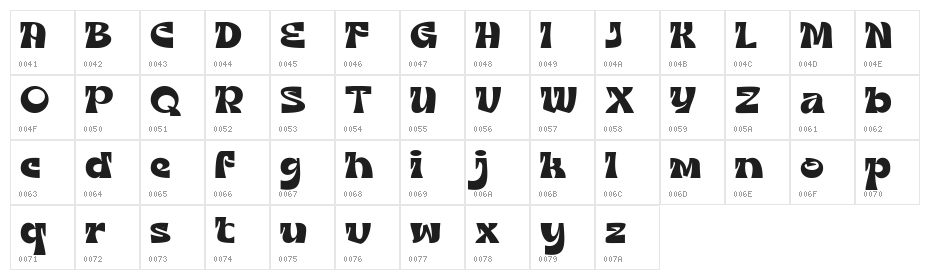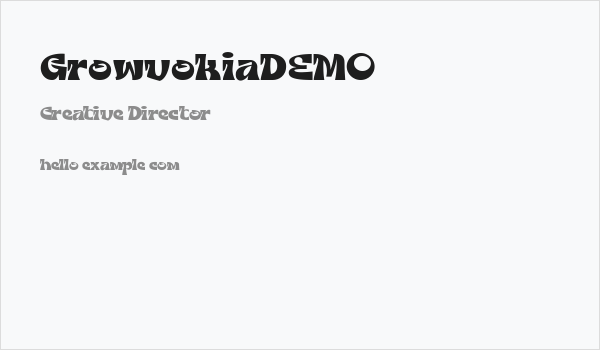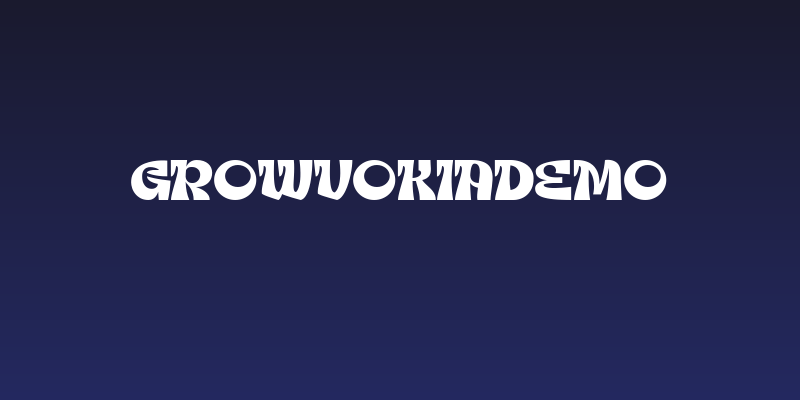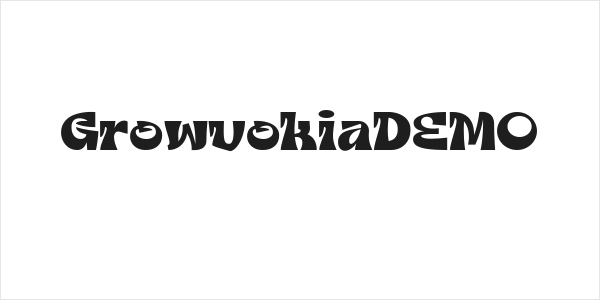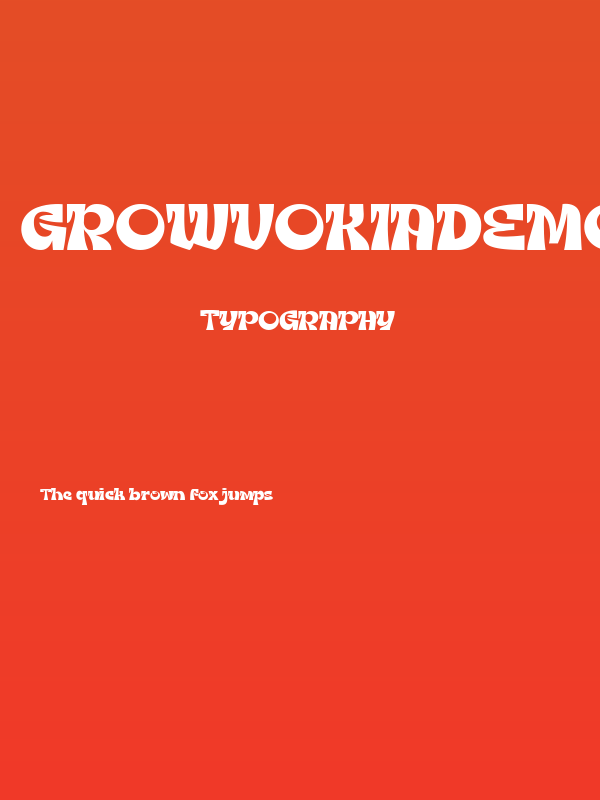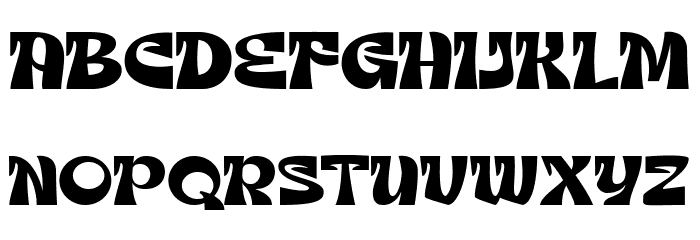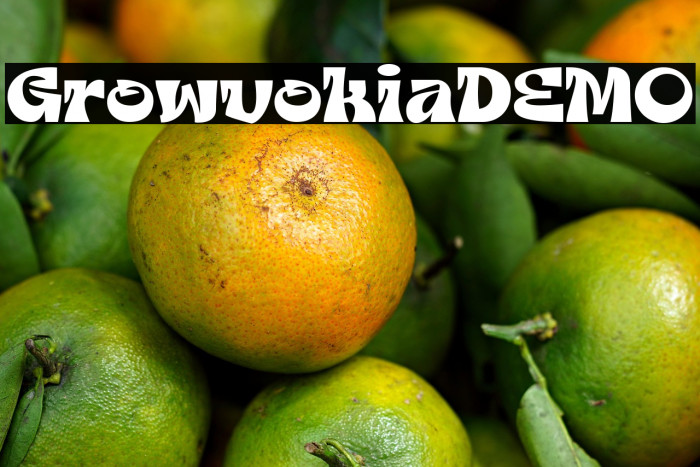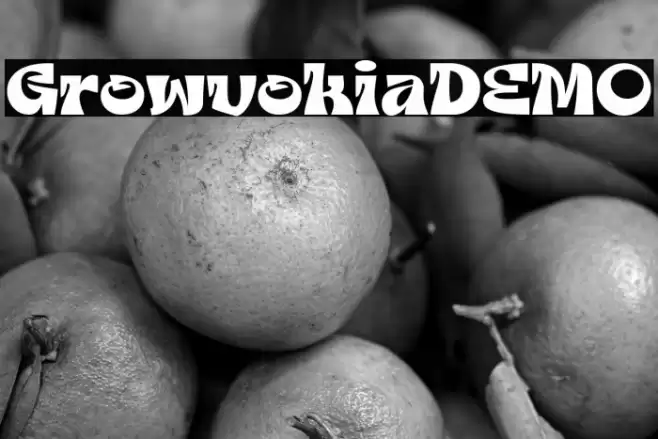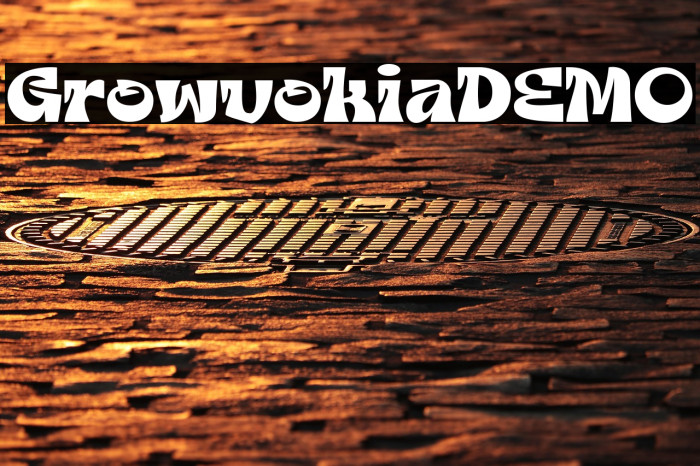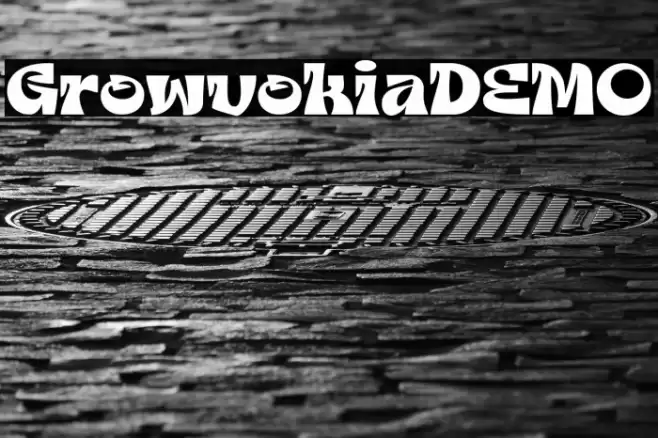
GrowvokiaDEMO Font
This font features a bold and dynamic design with a distinctively playful and artistic flair. The characters are crafted with a unique geometric style, incorporating sharp angles and curves that create a sense of movement and energy. The uppercase and lowercase letters maintain a consistent style, with the uppercase being slightly more pronounced. The numbers and special characters follow the same design principles, ensuring a cohesive look across all glyphs. This font's bold presence makes it ideal for eye-catching designs.
| Proposed Projects | Ideal for posters, branding, and creative projects that require a bold and dynamic typeface. |